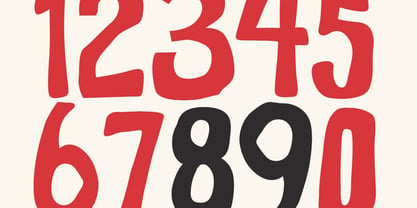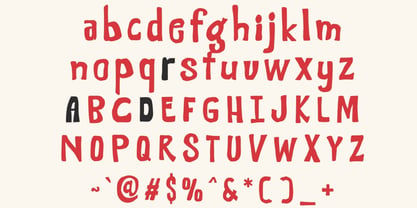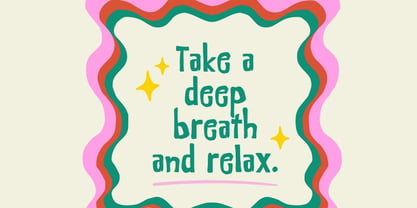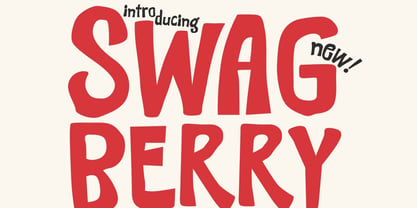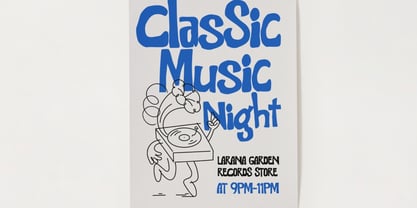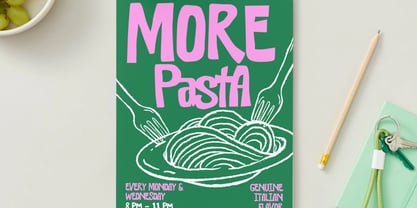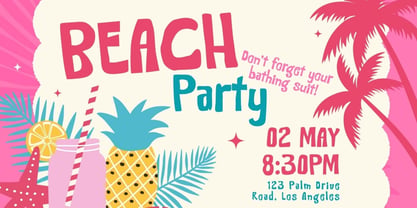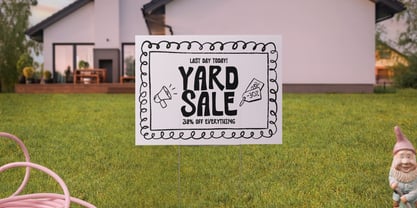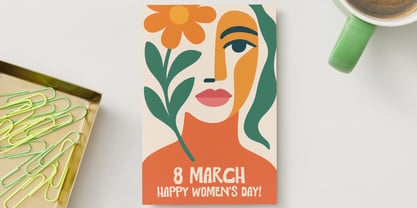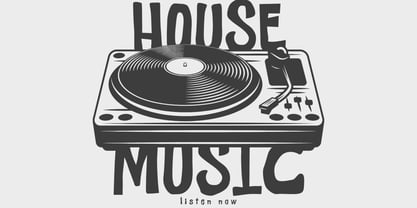
Swagberry
by Hipfonts
The Swagberry Font Family was designed by Igor Ovsyannykov and published by Hipfonts. Swagberry contains 1 styles. More about this family
Say hello to Swagberry, a bold and funky hand-drawn typeface bursting with playful energy, retro charm, and youthful personality. Designed with expressive curves and a laid-back attitude, Swagberry brings a vibrant, carefree vibe to any design it touches. This quirky display font embraces imperfection in the best way — its organic shapes and casual flow give it a natural, hand-crafted feel that stands out from clean, rigid typography. The result is a font that feels fun, friendly, and full of character. Swagberry’s retro-inspired style makes it perfect for designs that want to feel nostalgic yet modern. Its bold presence ensures your text doesn’t just sit on the page — it pops, grabs attention, and leaves a lasting impression.
Designers: Igor Ovsyannykov
Foundry: Hipfonts